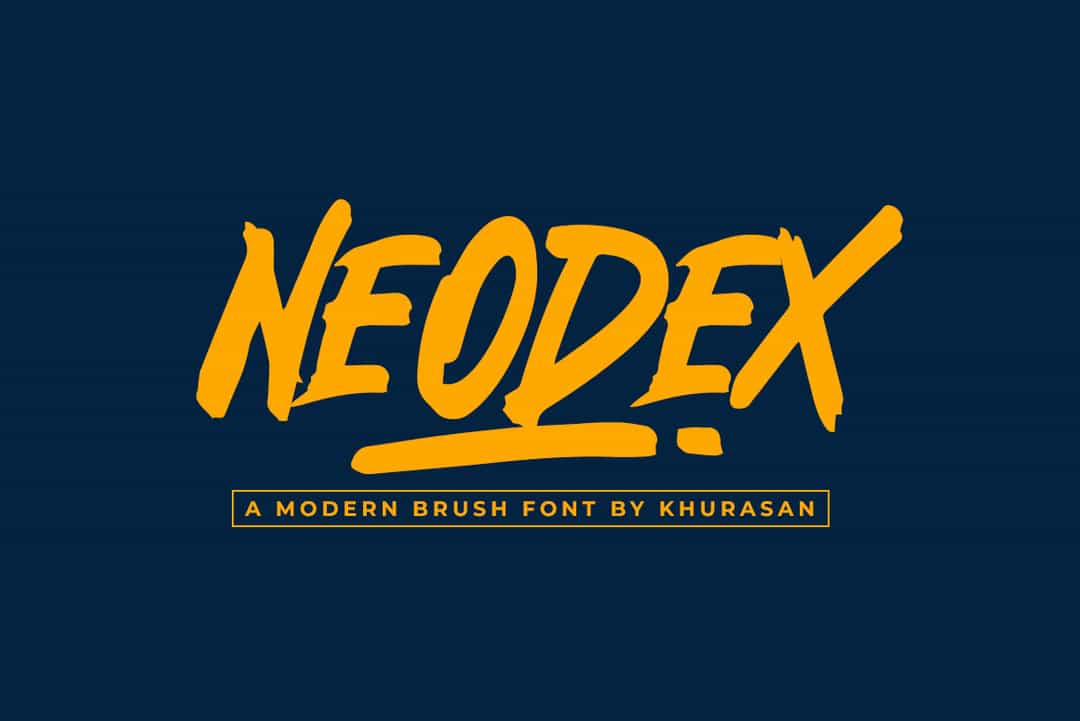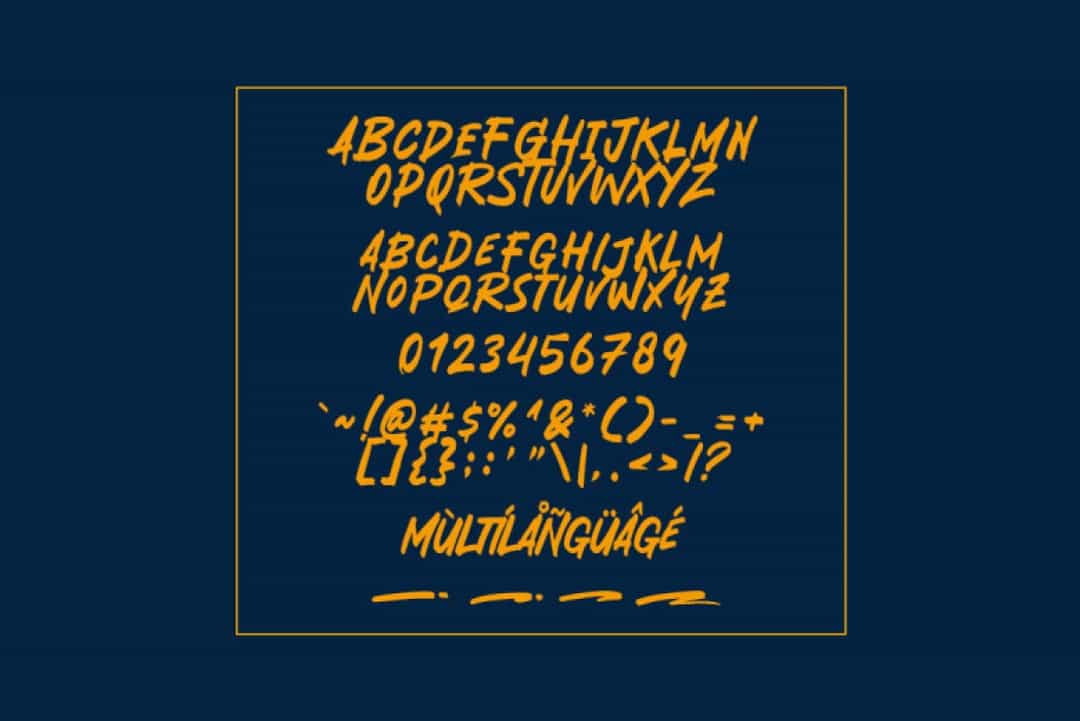
Neodex is an elegant contemporary strong brush typeface suitable for logos, posters, magazine covers, book covers, banners and much more! Take advantage of its beautiful display font to craft beautiful designs!